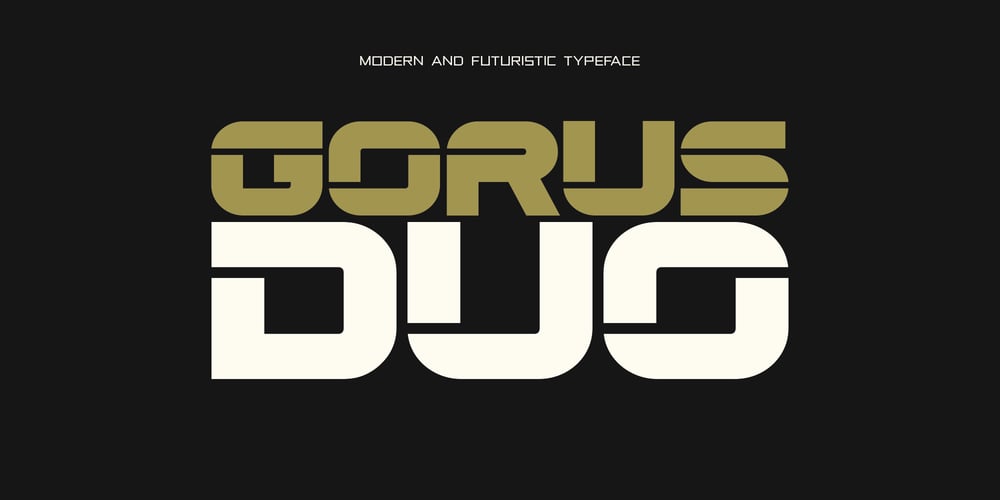
Gorus Duo
Gorus Duo font
Gorus Duo Font Family was designed by Stanislav Hatznik and published by Smartfont. Gorus Duo contains 5 styles and family package options. Gorus Duo is a modern and futuristic display font family. This is irreproachable font to diversify your headlines, logo, poster, branding visual identity, magazines and etc.Gorus Duo includes 5 fonts. Goes well with Gorus typefamily. The combination of futuristic and geometric elements creates an exceptional and memorable design.